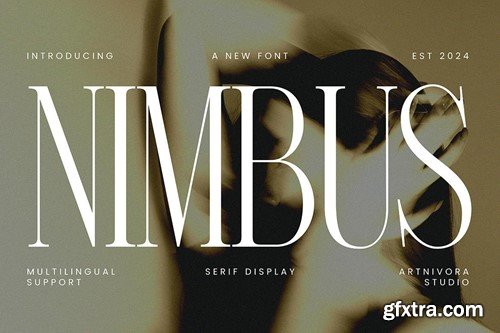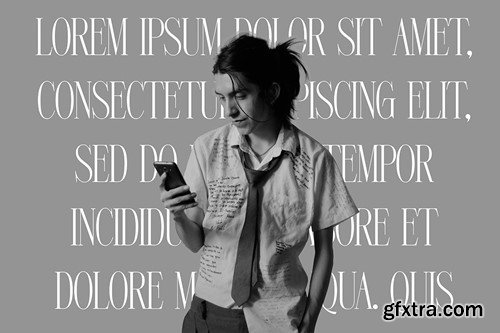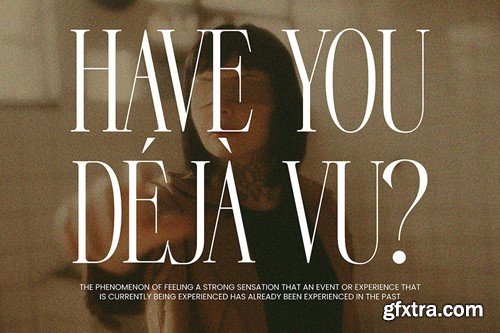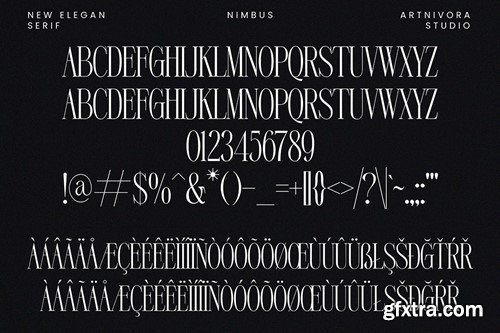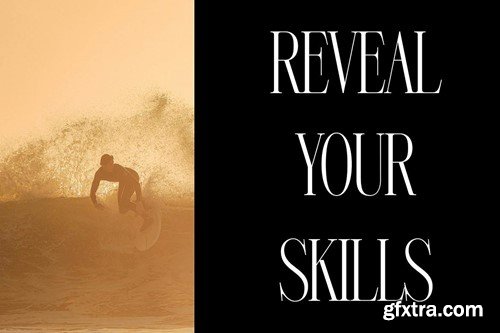
Nimbus - Serif Display Font
Introducing Nimbus, a simple and serif display font. So perfect for you who needs a typeface for logo designs, magazine, social media, brochure, and many more. Features Files Includes Thank you for checking and i hope you enjoy it.